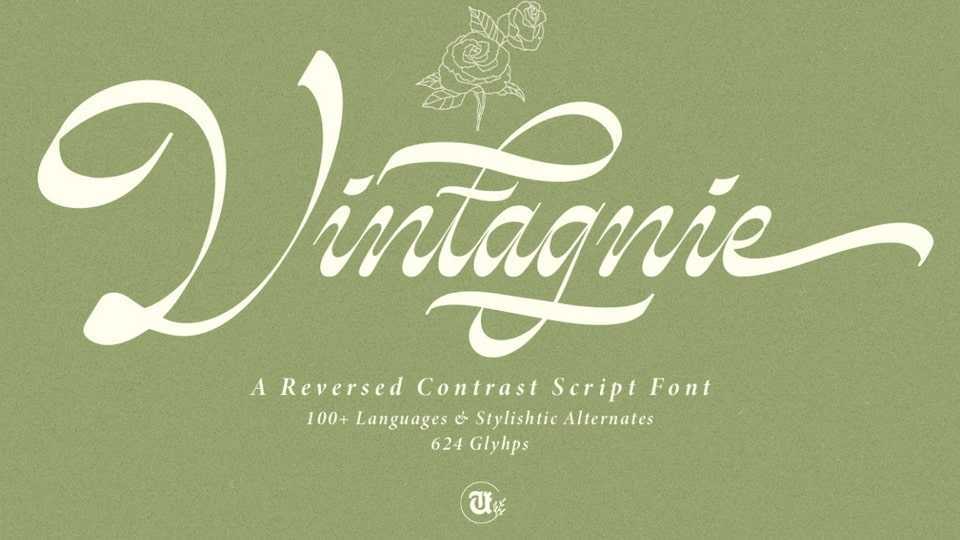
Download UT Vintagnie font, a romantic typeface that combines vintage elegance with modern functionality, perfect to add a romantic flourish to your designs.
Designer: Universitype Foundry